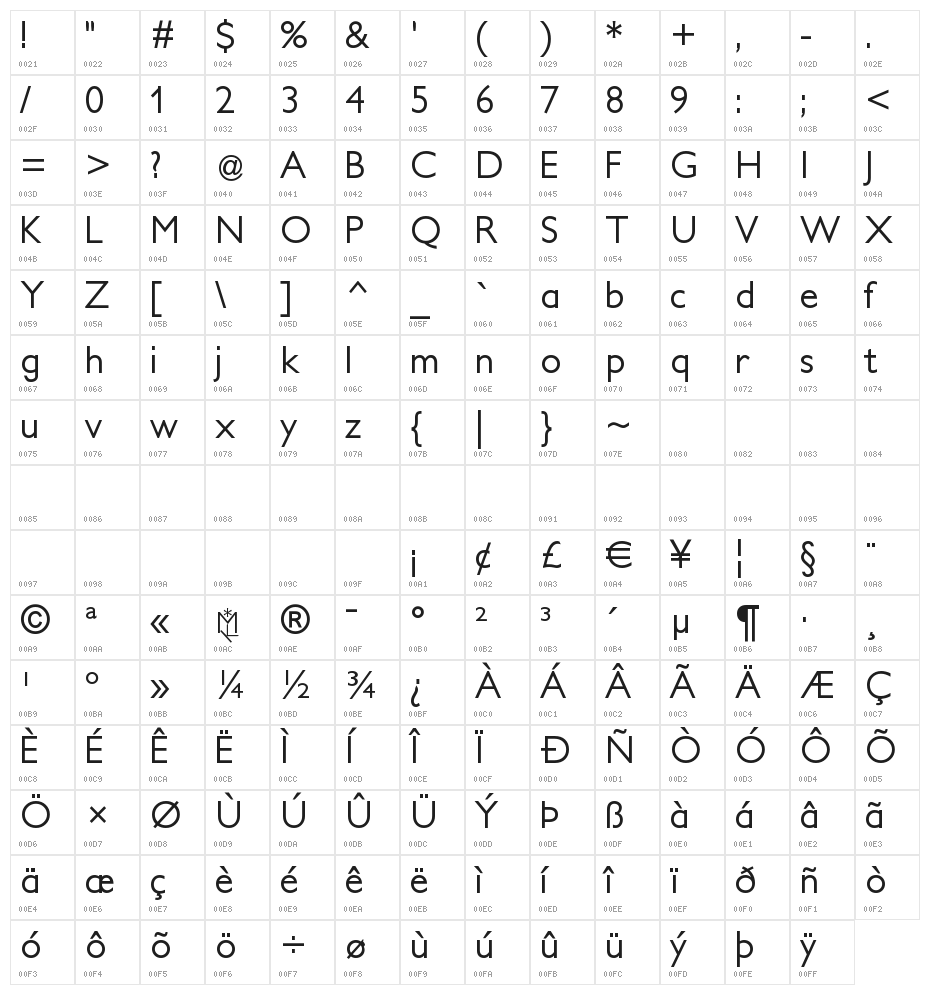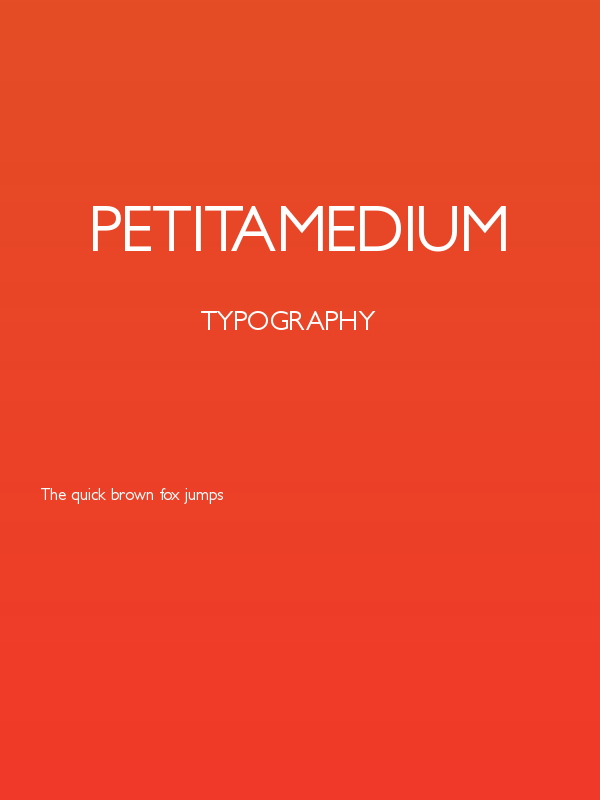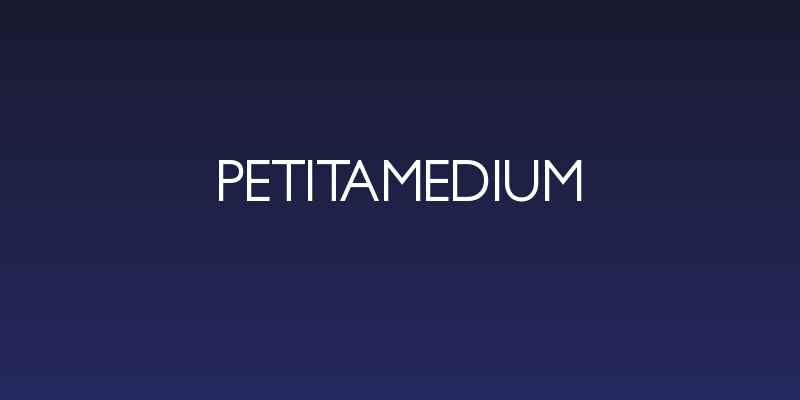
PetitaMedium Font
PetitaMedium Description
This font features a clean and modern sans-serif design with a geometric structure. The characters are well-balanced, offering a harmonious appearance that is both professional and approachable. The uppercase letters are bold and assertive, while the lowercase letters maintain a friendly and open feel. The numerals are clear and easily distinguishable, making them suitable for a variety of applications. Special characters are included, providing versatility for different contexts. The overall design is minimalistic, focusing on readability and simplicity.